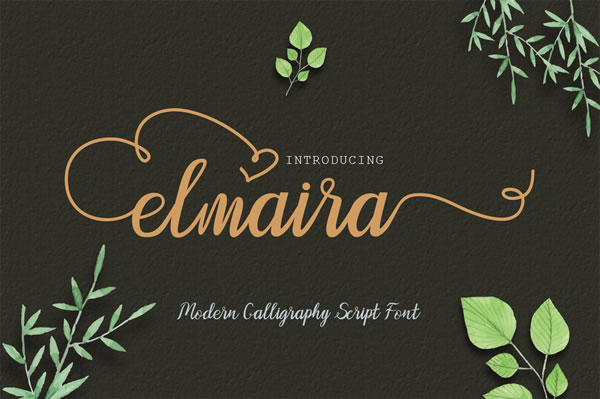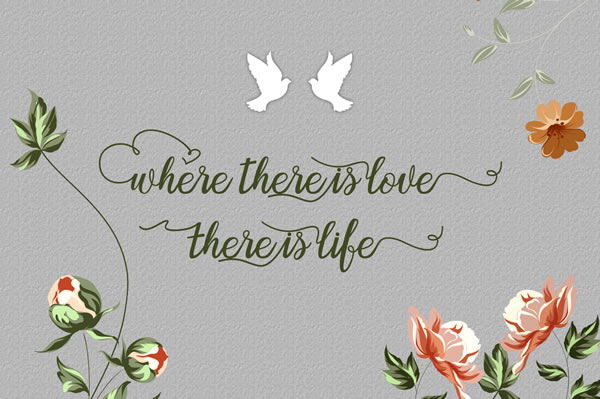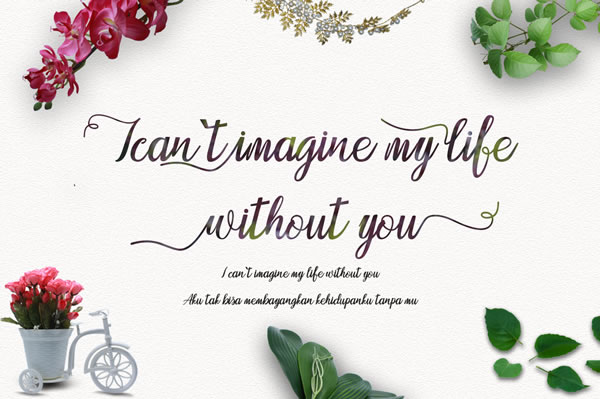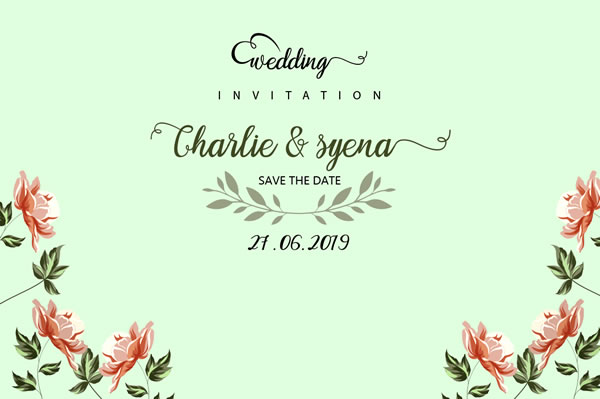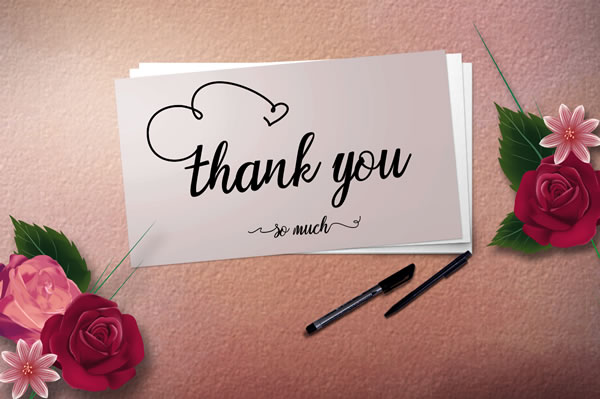
Elmaira Font
About Elmaira Font
Elmaira is a handwritten font that features a dancing baseline. This gives your text a smooth flow and gives your designs a warm personal feeling.
The Elmaira font features:
Contextual Alternates
Standard ligatures
Stylistic Alternates
Stylistic sets